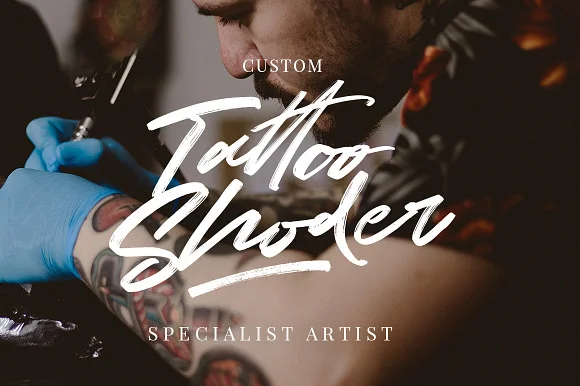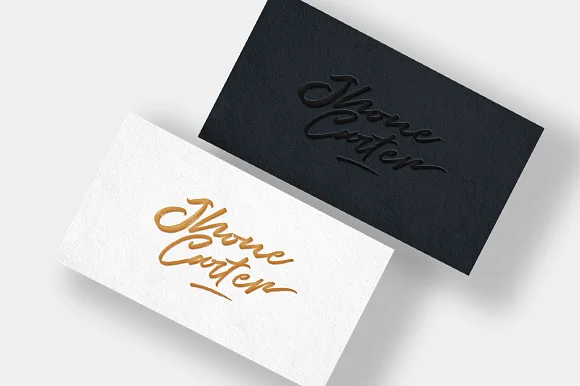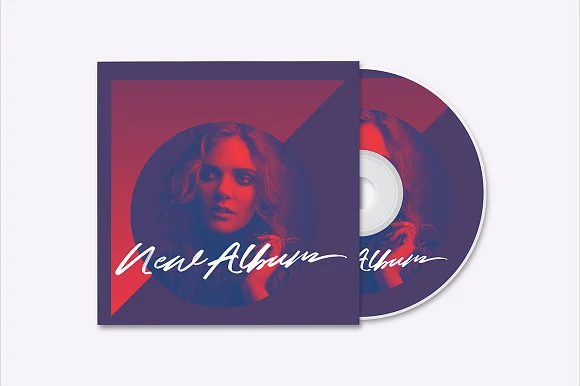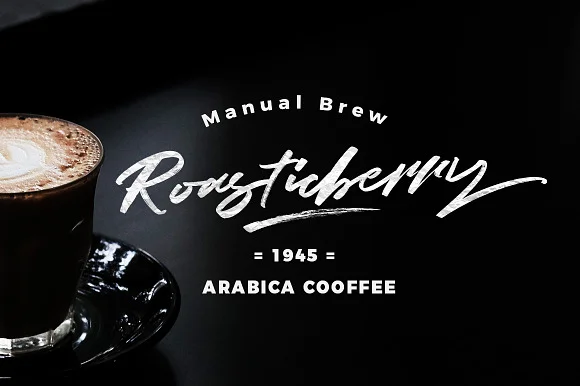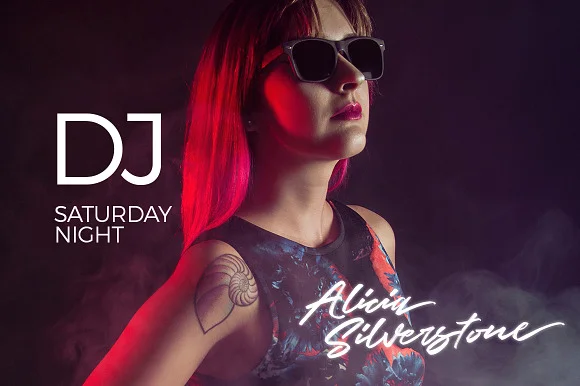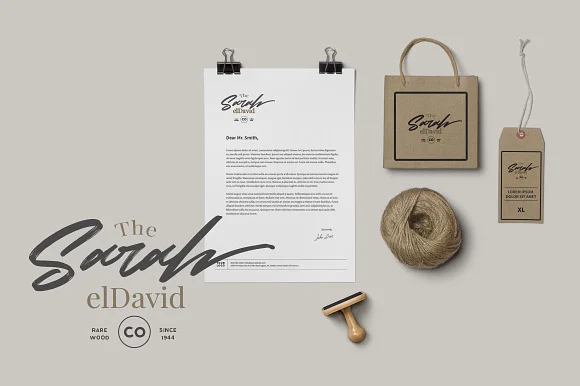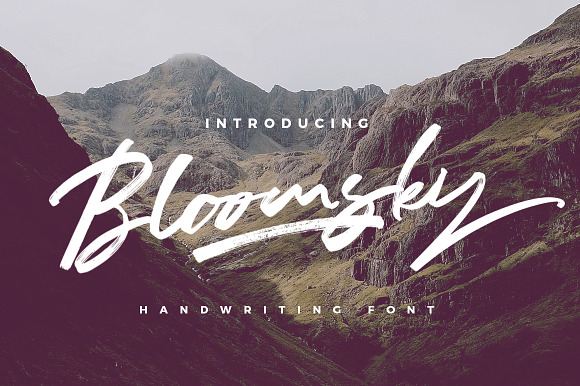
Bloomsky Font
Few typefaces manage to balance the kind of restraint that lets content lead with genuine day-to-day practicality. Bloomsky is one of them. The typeface brings an elegant, calligraphic sensibility to a broad range of creative disciplines, with consistent type colour across continuous text that holds up whether the work is print-first or screen-first.
In practice, Bloomsky proves particularly effective for social media graphics, beauty packaging, boutique logos, high-end cosmetic packaging, editorial layouts. Designers reaching for it find that the type decisions feel resolved rather than laboured — a useful quality when client timelines are tight.
The range of applications extends to advertising campaigns, greeting cards, brand identity systems, product labels. That breadth is deliberate: the proportions and spacing were stress-tested across a wide range of mock briefs before the typeface was finalised.
Bloomsky sits comfortably alongside both classic and contemporary typefaces in multi-font hierarchies. It takes direction rather than competing for attention — a quality that experienced designers know is harder to find than it appears.
Brand strategists building visual languages find Bloomsky a reliable choice for projects that demand both personality and restraint. The design avoids the self-conscious quirkiness that dates quickly, settling instead for considered distinctiveness that holds up over time.